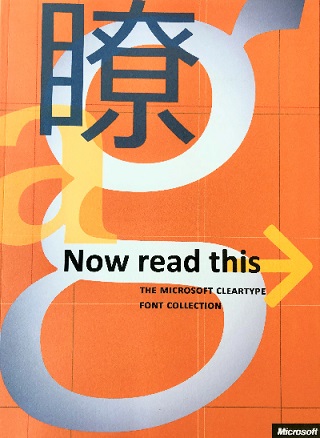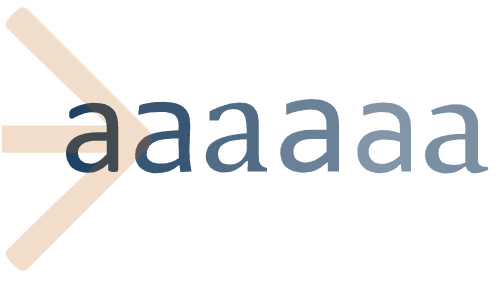
The ClearType Font Collection is the result of a successful collaboration of both designers and engineers working together with respect, flexibility, and curiosity. ClearType fonts were conceived from the outset as a marriage of technology and the best in design expertise! This improves the appearance of text on certain types of monitors through the use of subpixel rendering technology.
The ClearType Font Collection listed below were first shipped with both Windows Vista and Office 2007 and have been part of Windows ever since.
Now Read This:
- In 2003, Microsoft brought together a team in Redmond to brainstorm, to learn about ClearType, and to kick-off a new project; to create a new set of Typefaces designed specifically to work with ClearType. We are pleased to offer a download of the book that tells the story of how these fonts were created.
Cambria Math:
- This book focuses on the Cambria Math font implementation for mathematical typesetting, rather than on the math layout engine software, and is intended as an introduction for mathematicians and scientists as users of the font, and for designers and font developers interested in understanding the general principles of Microsoft’s approach to mathematical typesetting and the features of the Cambria Math font.
Type Samples: